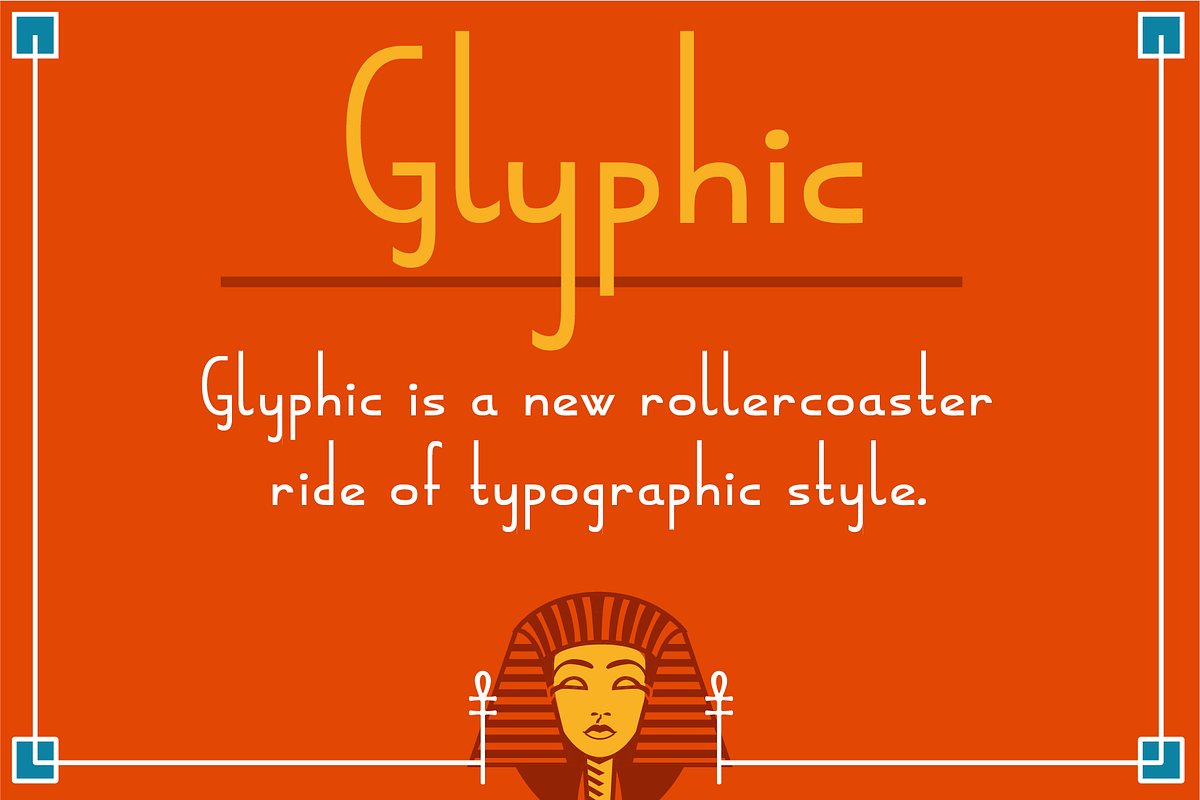
Glyphic
Glyphic is a rollercoaster ride of typographic style, with forms seeming to change their mood from ultra-serious to absurdly playful if you blink your eyes. As non-Egyptian as it might feel according to the current typographic meaning of that descriptor, its origins lie deeply in the study of Egyptian forms and influences.
Some of the attributes which we call Egyptian in discussing typography are absent in Glyphic, some as the slab serif. But there remains a decidedly horizontal flow through subtle design moves like letting the bottom of the “e” exist as a practically horizontal stroke. Some typical optical adjustments, such as overshoot, were skipped or minimized to introduce the imperfection inherent in handmade items.
Dismiss the Egyptian connection if you wish: Glyphic still remains as a fun, versatile, and crazily feature-packed font with a robust character set.